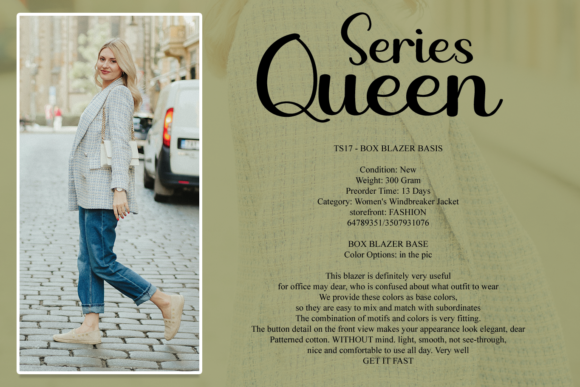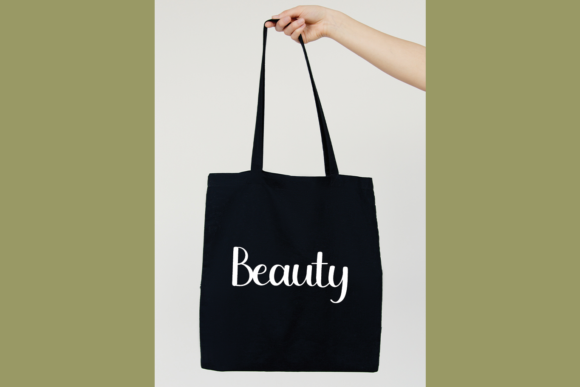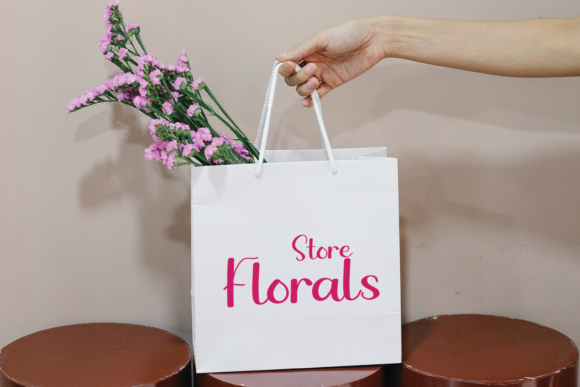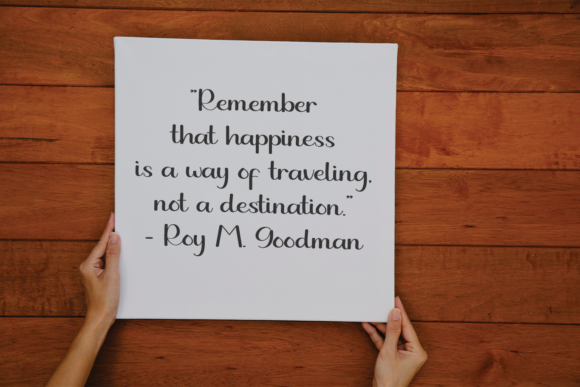
About Puppy Font
Puppy is a lovely script font featuring charming, playful characters that seem to dance along the baseline. Add this font to your most creative ideas, and notice how it makes them stand out!